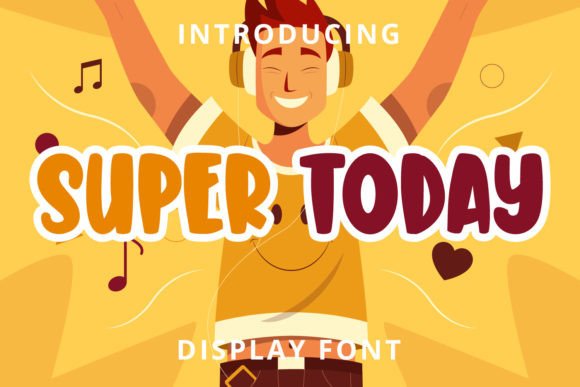
Unveil the Enchanting World of Super Today Font: Your Gateway to Stunning Visual Expressions
Embark on a captivating typographic journey with Super Today Font, a playful and enchanting display font that will ignite your creativity. Designed by the visionary team at Planetz Studio, Super Today is meticulously crafted to bring a touch of whimsy and charm to your design endeavors.
Step into a realm of endless possibilities, where Super Today's vibrant and cheerful characters dance across your screen, captivating audiences with their infectious energy. Whether you're crafting children-themed designs, whimsical illustrations, or eye-catching branding materials, this font is your perfect companion.
With its playful curves and cheerful demeanor, Super Today has a knack for transforming ordinary words into extraordinary works of art. Its unique letterforms, reminiscent of a child's playful scribbles, evoke a sense of nostalgia and childlike wonder, making it ideal for projects that aim to evoke a sense of lightheartedness and joy.
Experience the versatility of Super Today Font as it seamlessly adapts to a myriad of creative projects. From playful posters and vibrant marketing campaigns to enchanting social media posts and captivating website designs, this font knows no bounds. Its ability to command attention and spark conversations makes it a standout choice for designers seeking to leave a lasting impression.
Immerse yourself in the world of Super Today Font and unlock a treasure trove of design possibilities. Let your imagination soar as you explore the endless creative avenues that this font opens up. With Super Today by your side, you'll never run out of ways to express yourself and captivate your audience.